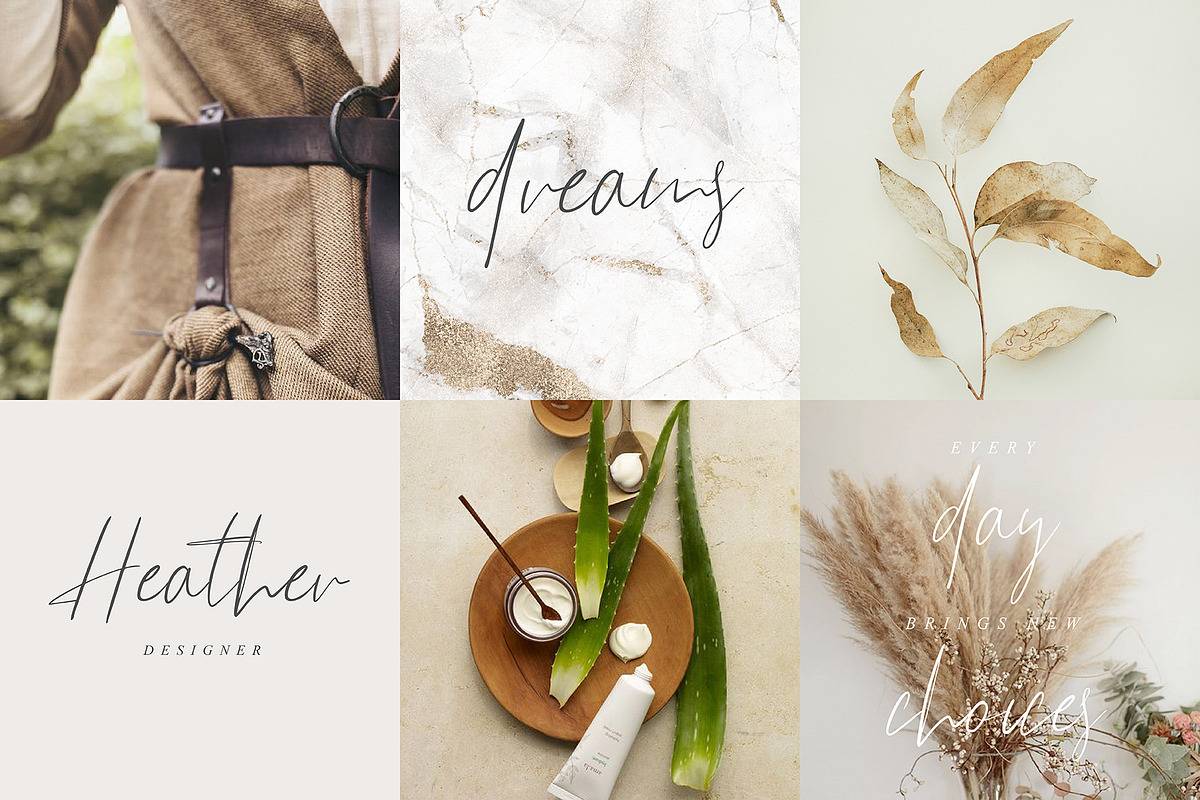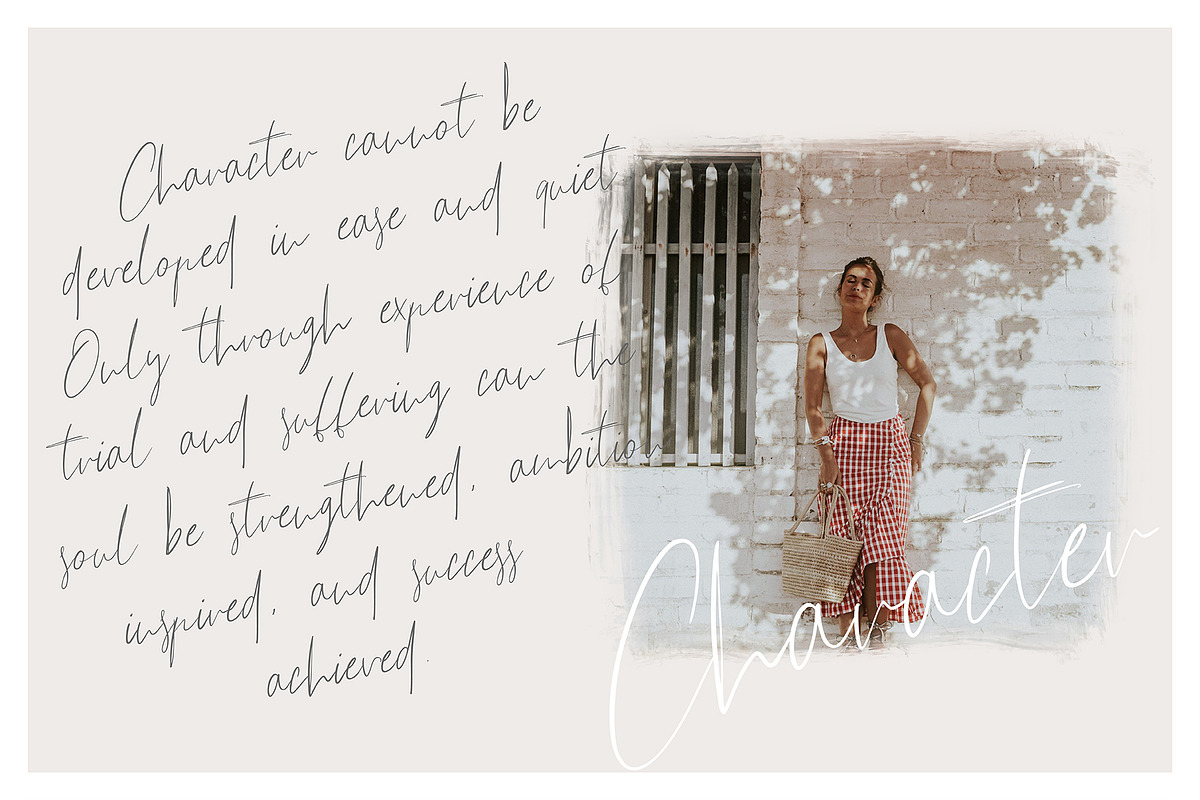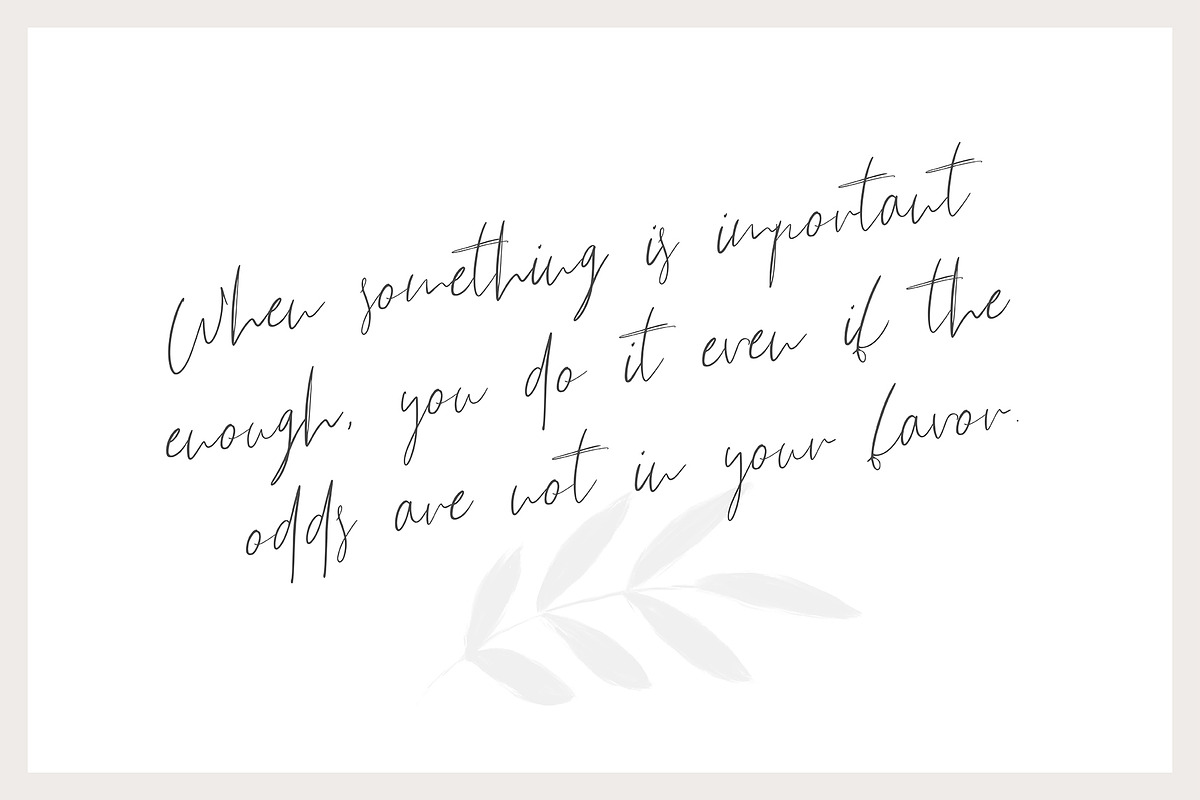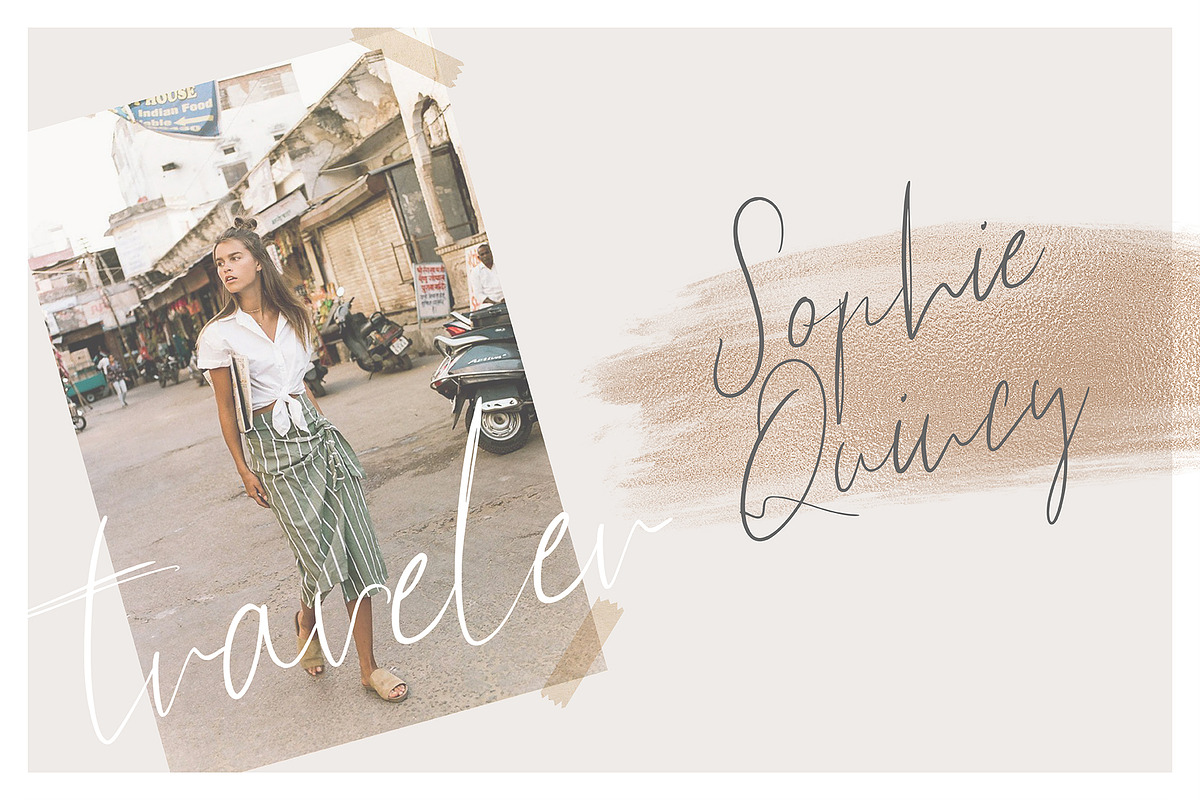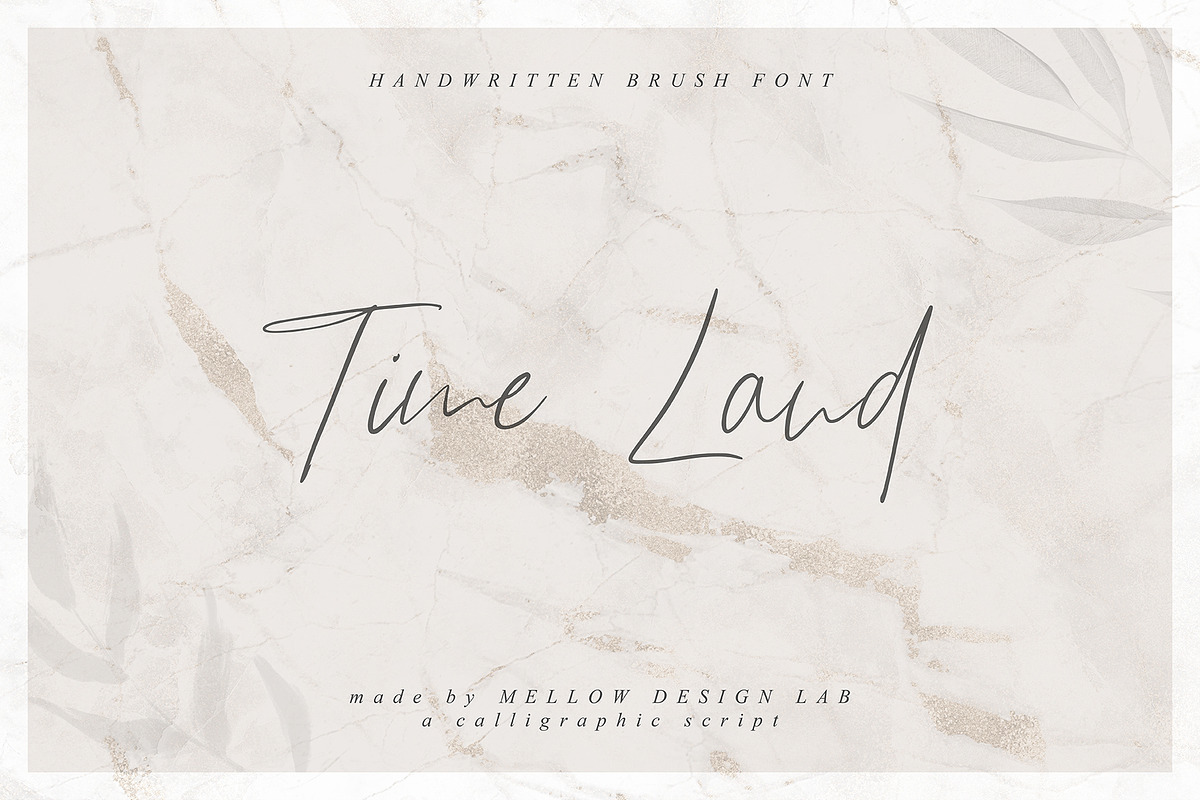
Time Land Font
This handwritten brush font is especially for you if you need to add tenderness to your project. Combine it with other fonts and add style in your project. This handwritten font is ideal for branding and decorate your any project.
This font are perfect for wedding invitation or your blog. Also with their help, you can create a logo or beautiful frame for your home. Or just use for your small business, book covers, stationery, marketing, magazines and more.
Time Land Font by Creamy Script fits naturally into Branding, posters, packaging, typography.